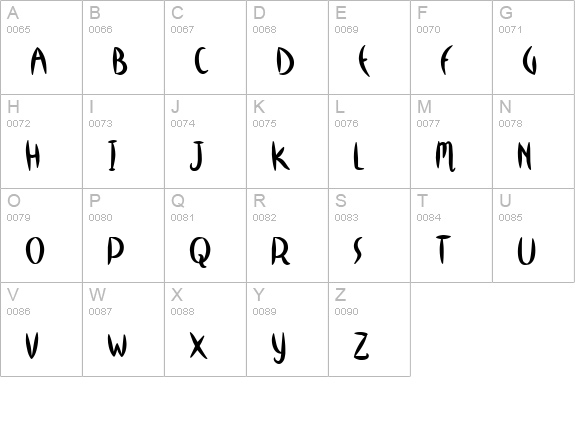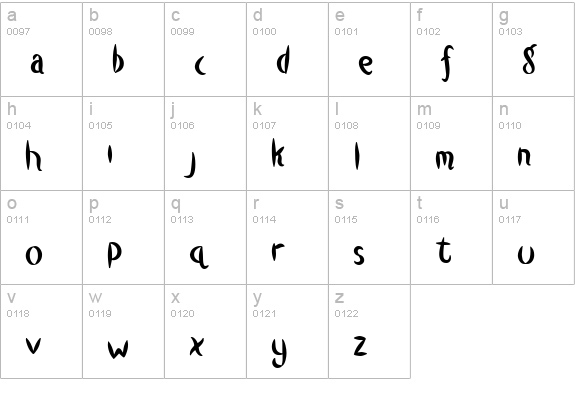
CK Indigo Font Details
The CK Indigo font is a modern and stylish typeface that exudes elegance and sophistication. With its sleek lines and contemporary design, this font is perfect for a wide range of creative projects. Whether you are designing a logo, creating a poster, or crafting a website, CK Indigo will add a touch of class to your work. What's even better is that CK Indigo is available for free download at FontsMarket.com. Yes, you read that right - this high-quality font can be yours at no cost. So why wait? Elevate your designs with the CK Indigo font today and make a lasting impression with its unique and eye-catching appeal.